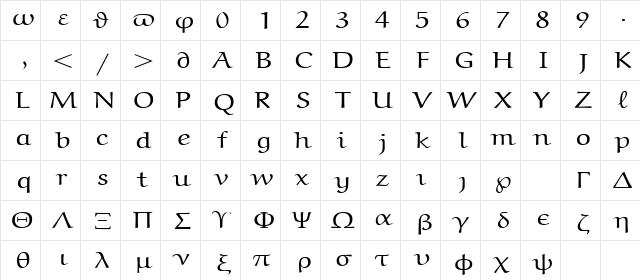
eurm5 Regular
Design Context for eurm5 Typeface
eurm5 offers clean, dependable letterforms without strong stylistic allegiance, making it a practical choice for designers who need flexibility.